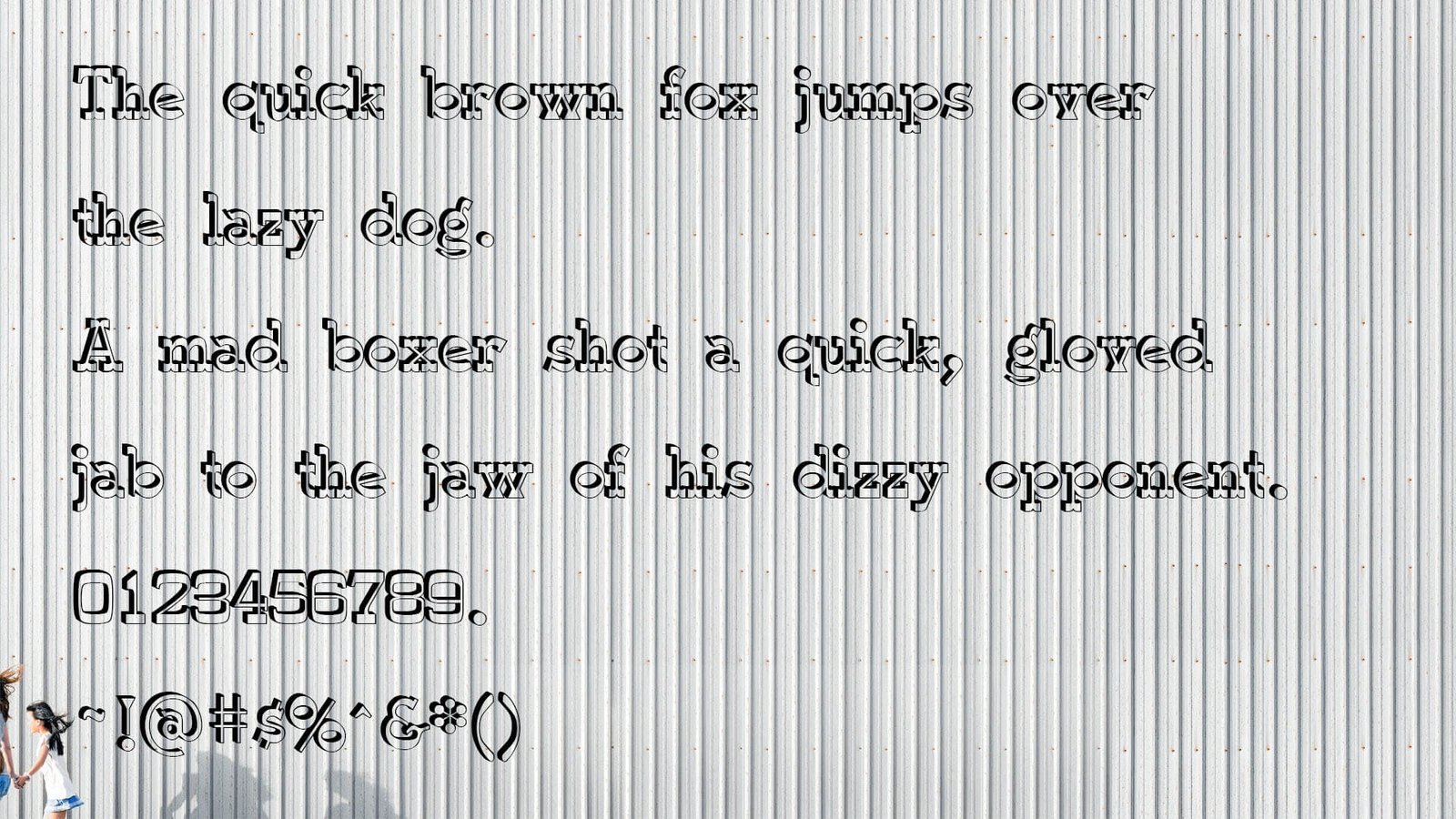
Hillbilly Font has a rustic and country-inspired design, perfect for projects related to rural areas, farming, and outdoor adventures.
| Name | Hillbilly Font |
| Designer | BitongType |